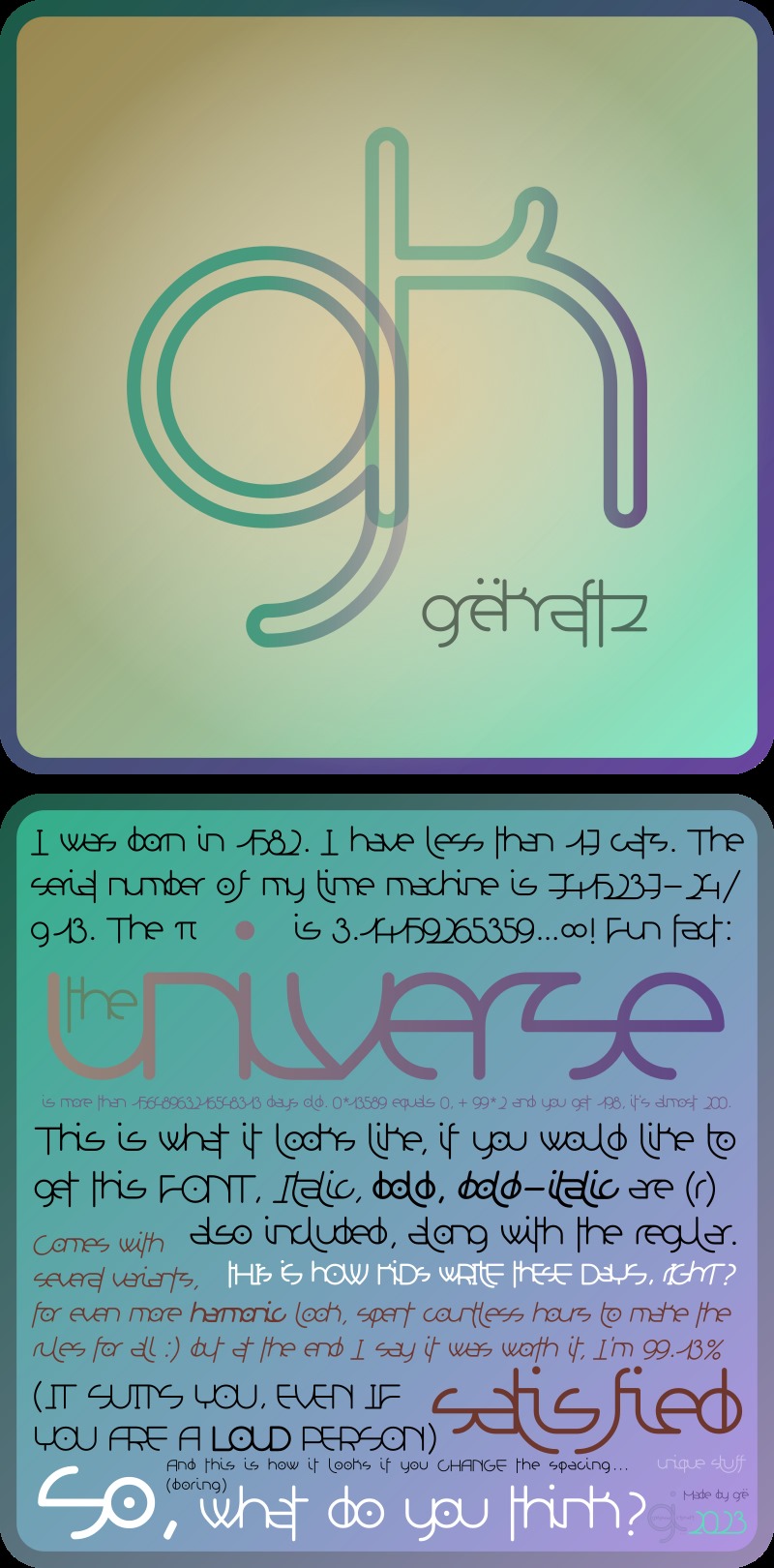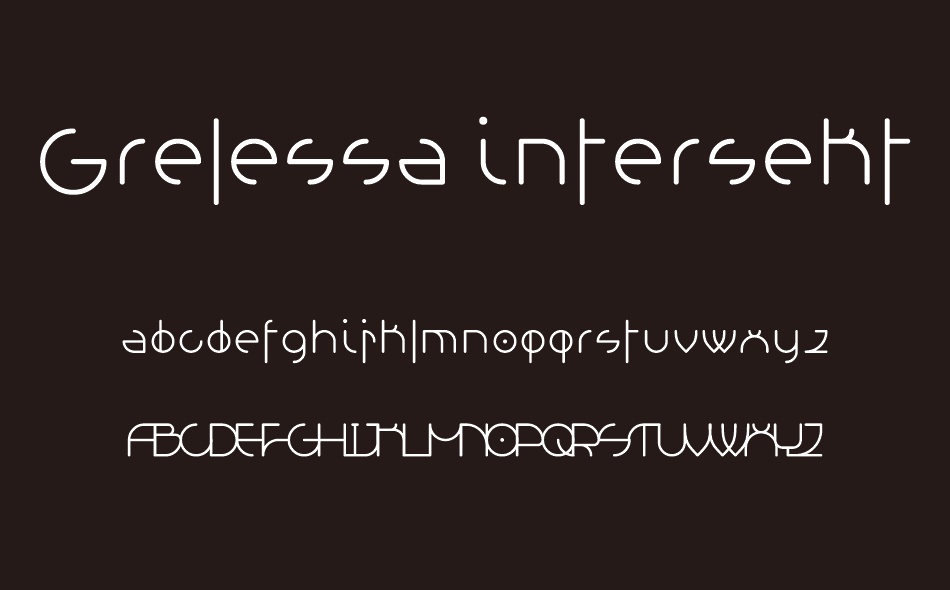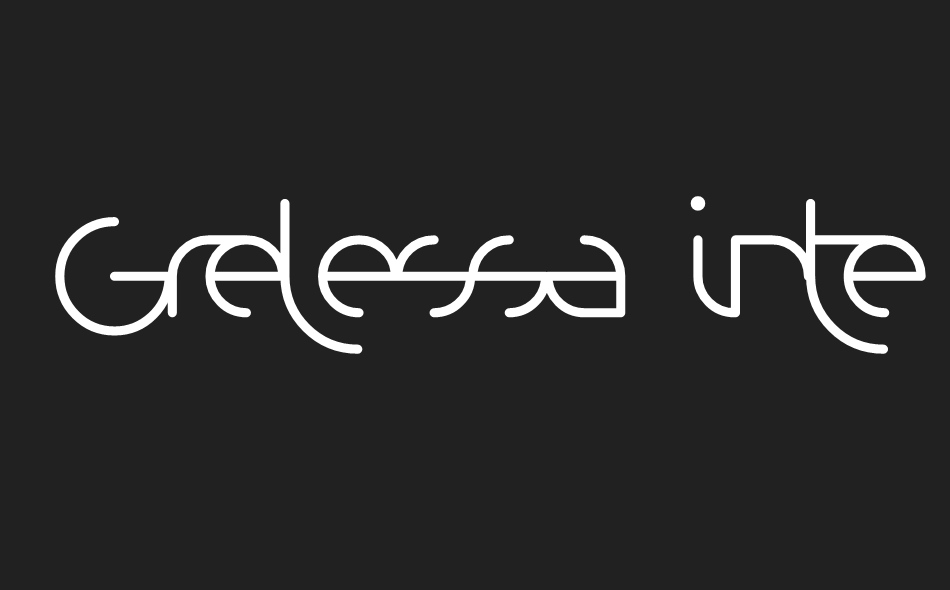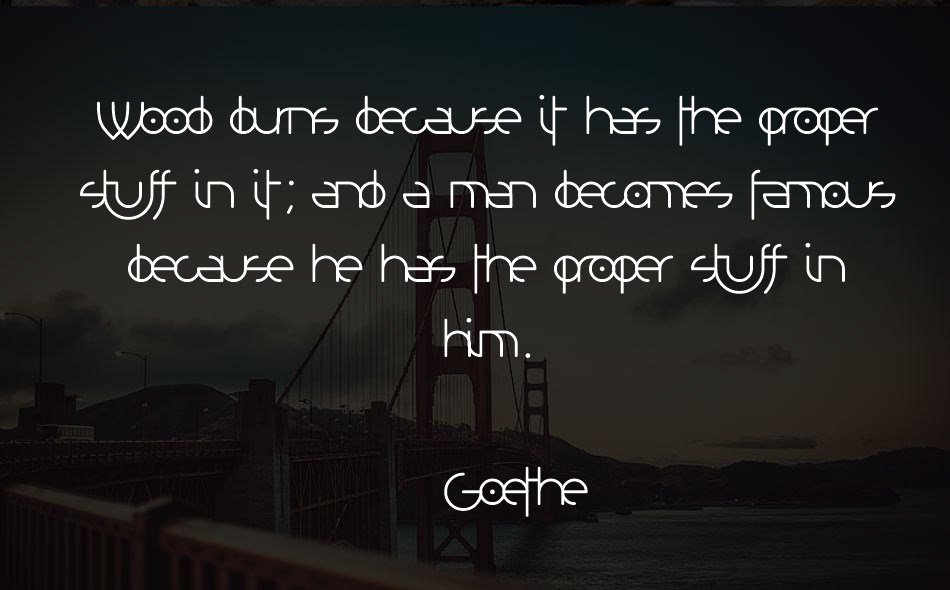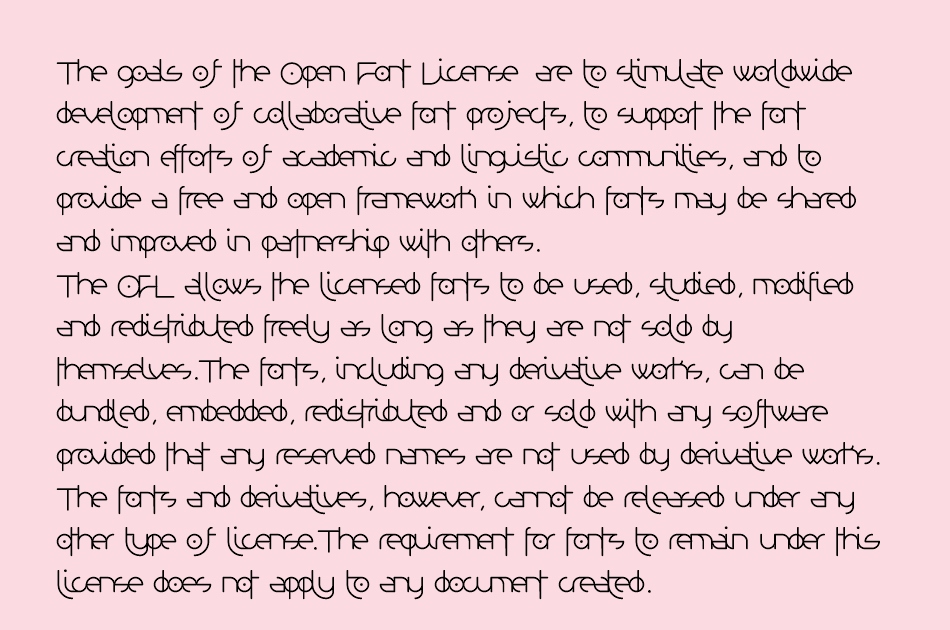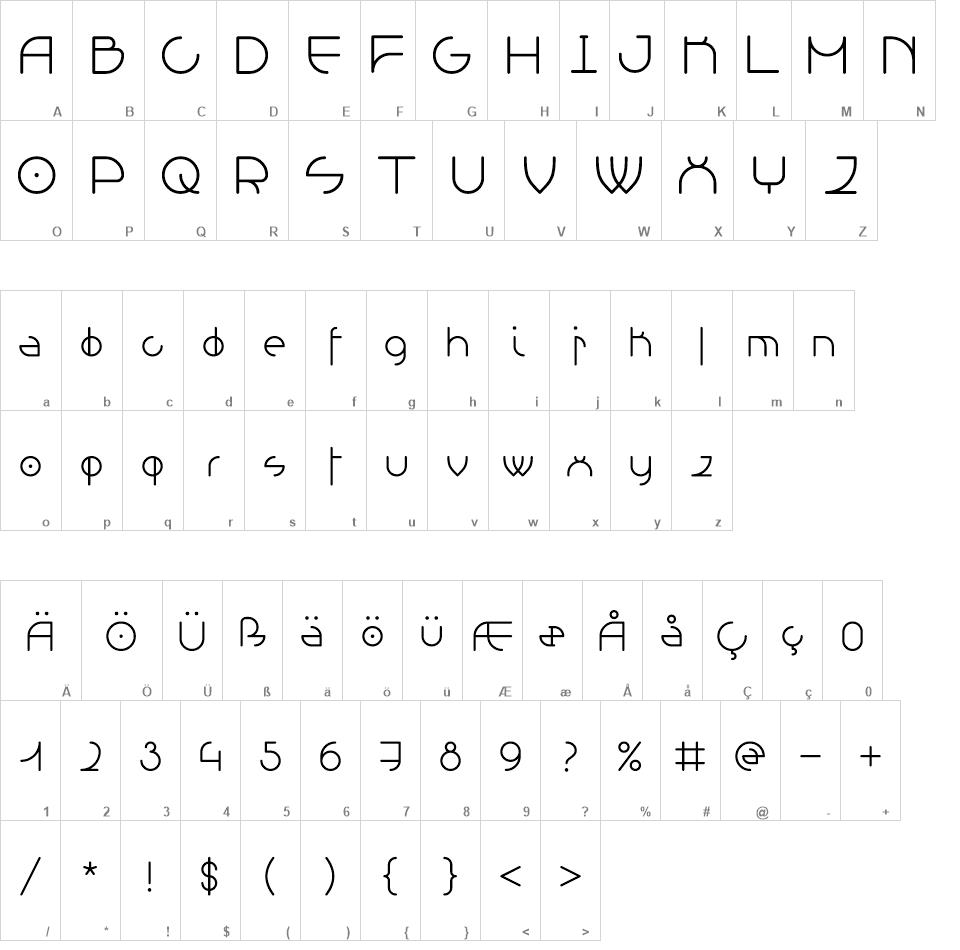
Grelessa intersekt font
I've made this unusual font family for my personal reasons, but I share with everyone, as I think also others could like it. Go ahead and download, give it a try. Many languages are supperted. (latin letters only)
As the name suggests, and you can see the preview, the font is done on a way, that makes it unique, and I like it a lot, but there are some downsides. For example the smallest amount of change with the spacing will "ruin" it, or the intersected parts are ugly, when glyps are used as transparent. (e.g. inactive text o android) This can happen, when you don't have control over the font settings, but for regular use it shouldn't be an issue, as you have the control. Some applications/programs might overwrite the kerning and/or ignore the variants by default, that needs to be set manually, maybe some won't support at all, so I can't promise, it'll work for your needs, but it should be fine. A high resolution screen is also suggested.